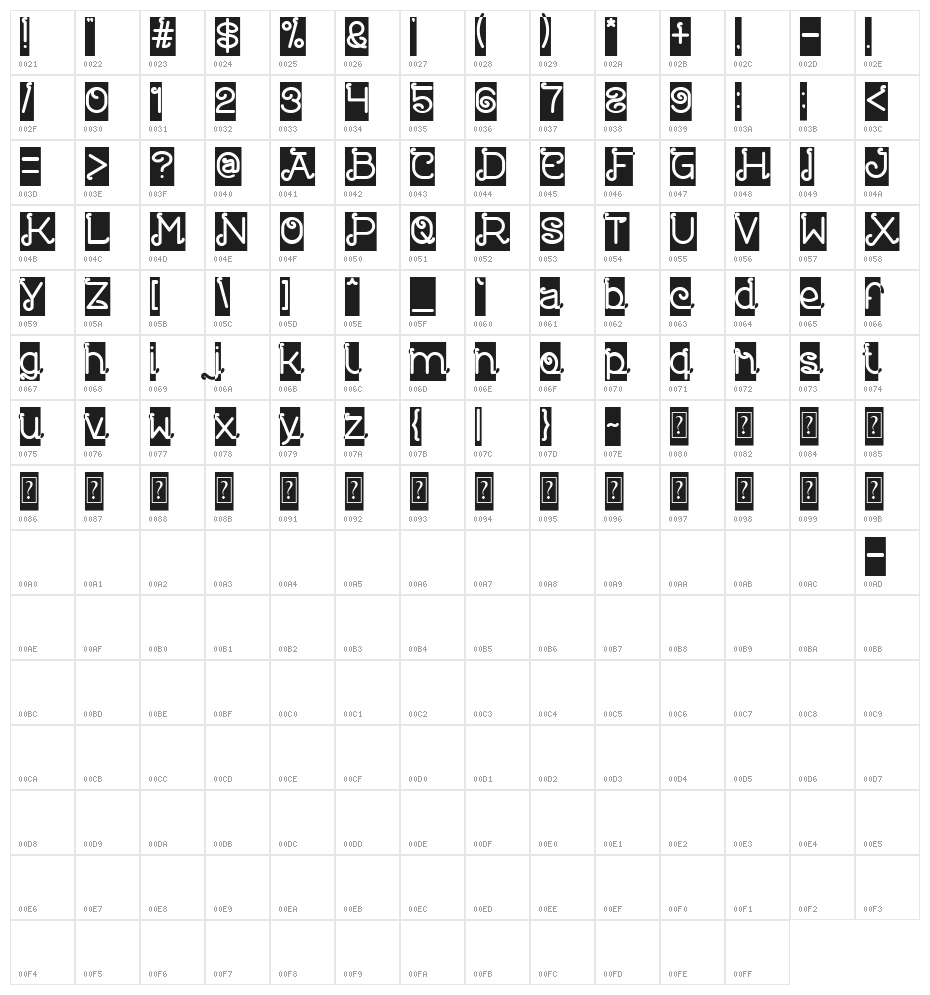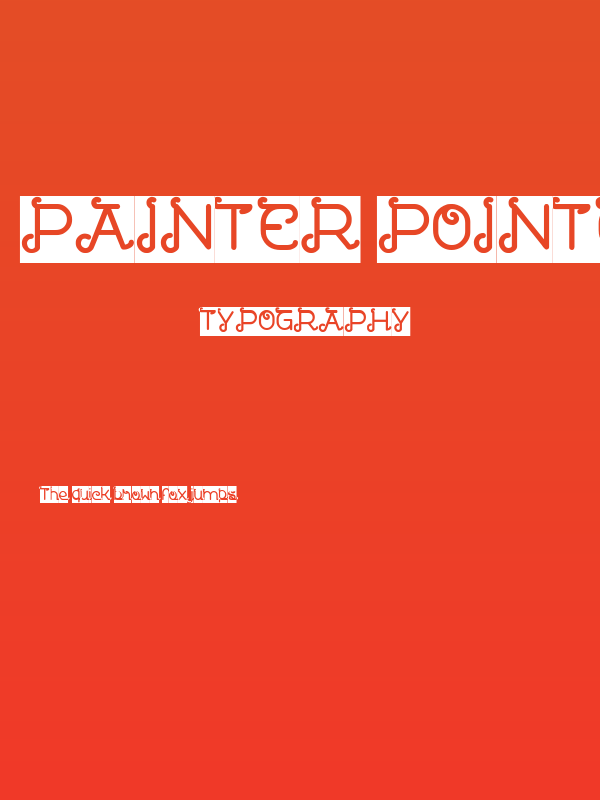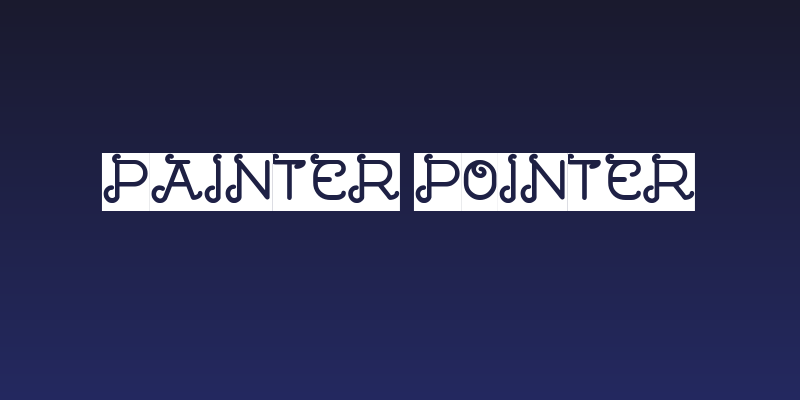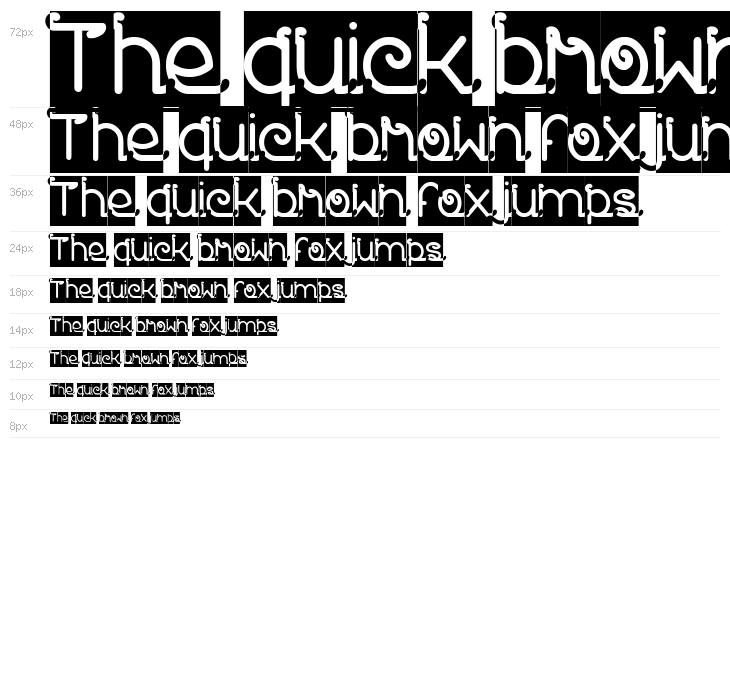
Painter pointer Font
| Vorgeschlagene Projekte | Ideal for art-related branding, children's book covers, creative posters, and playful packaging designs. |